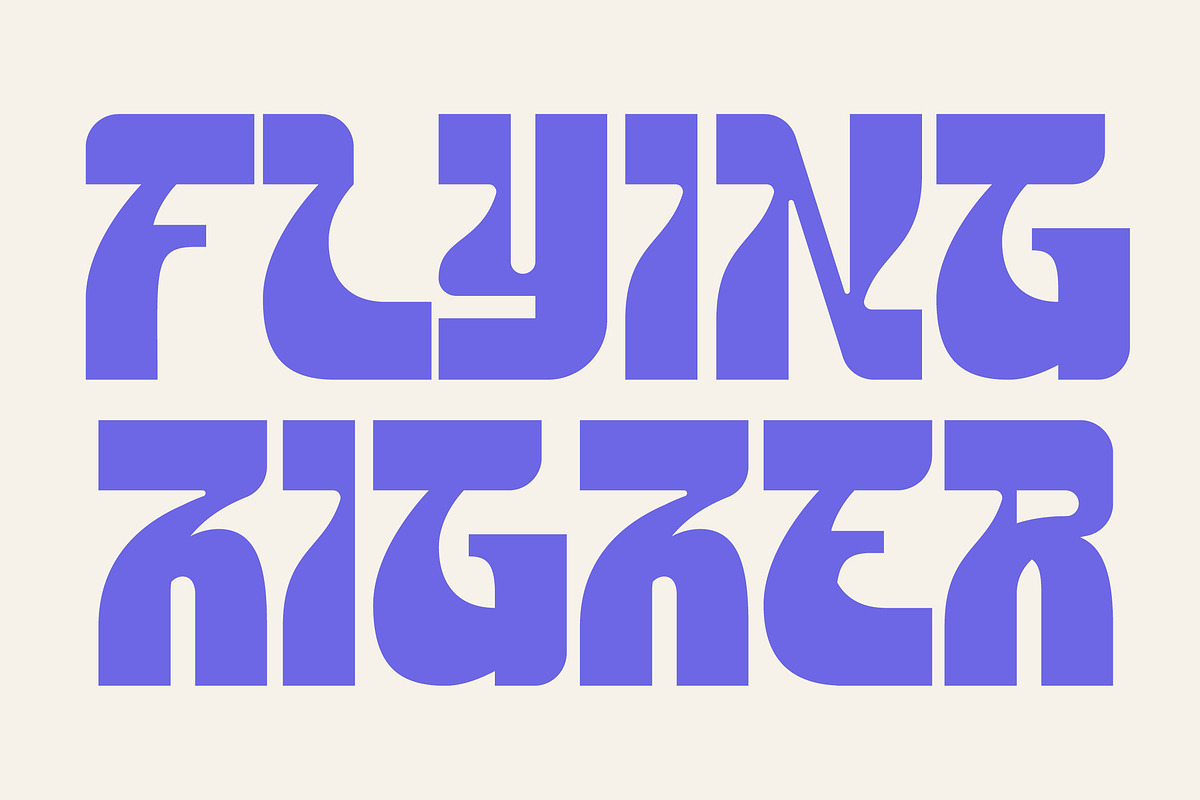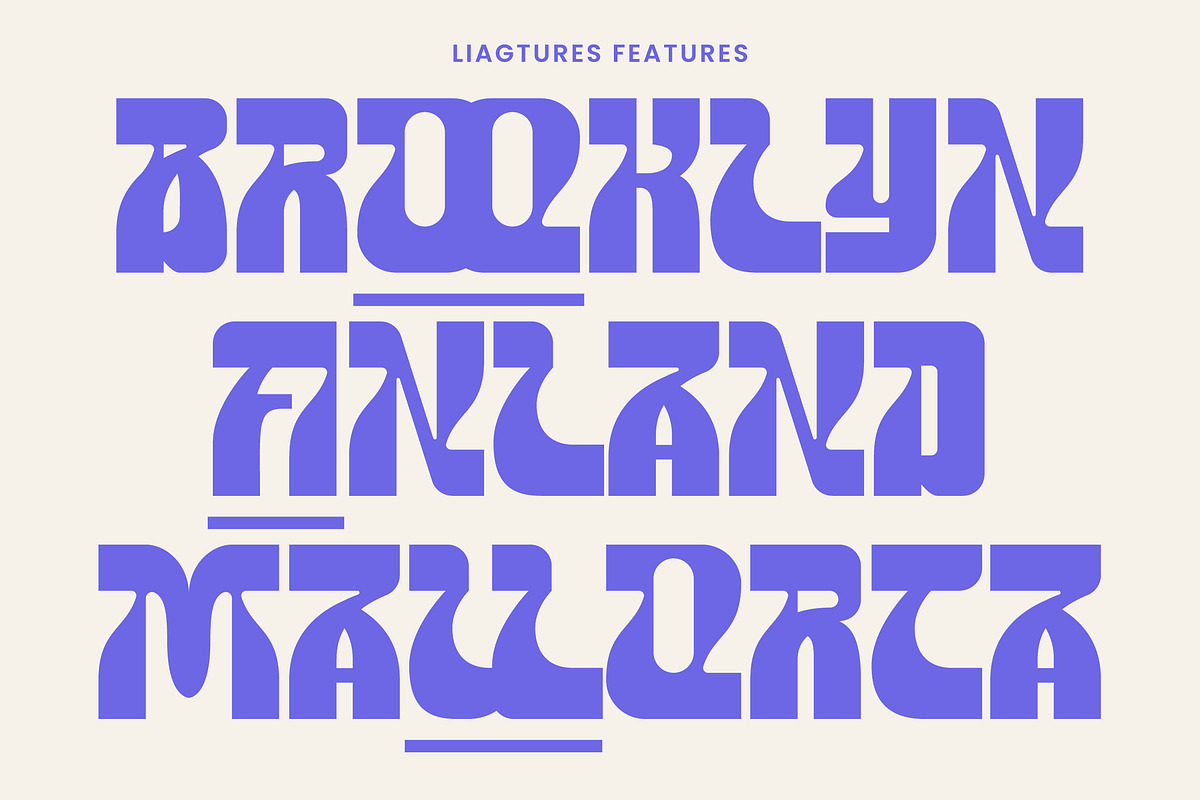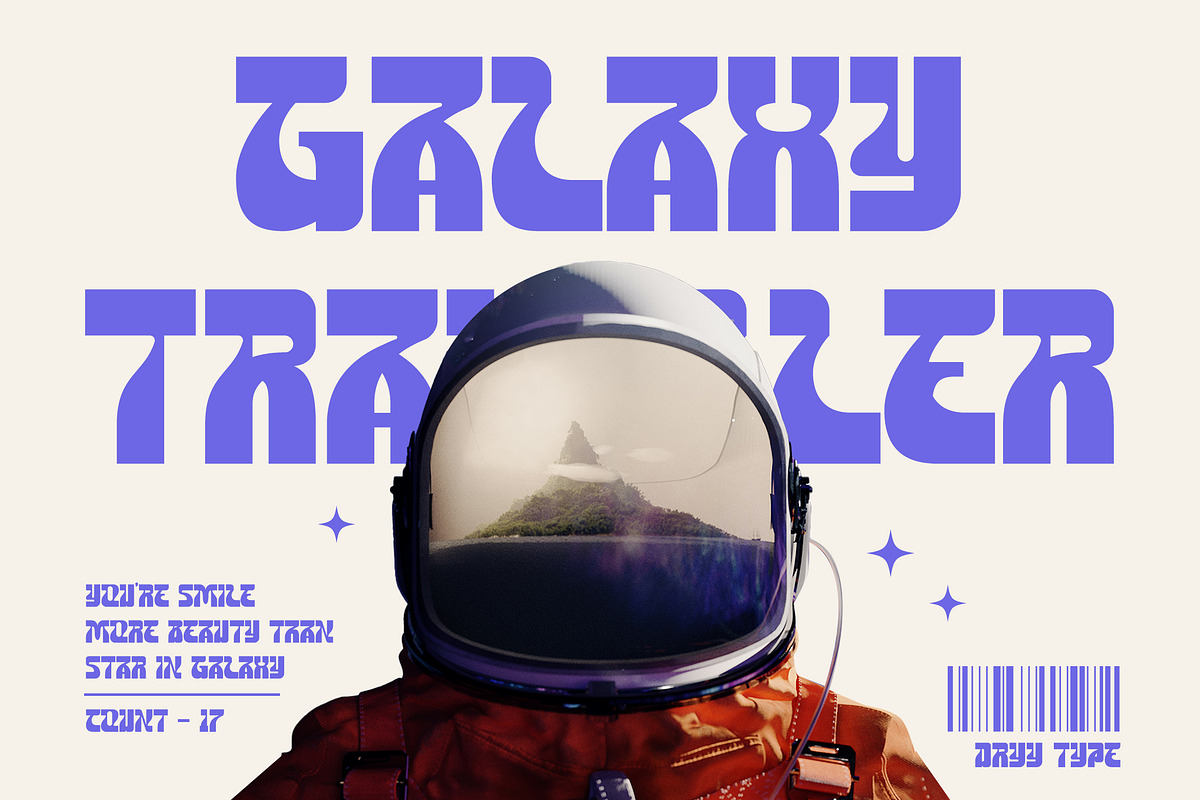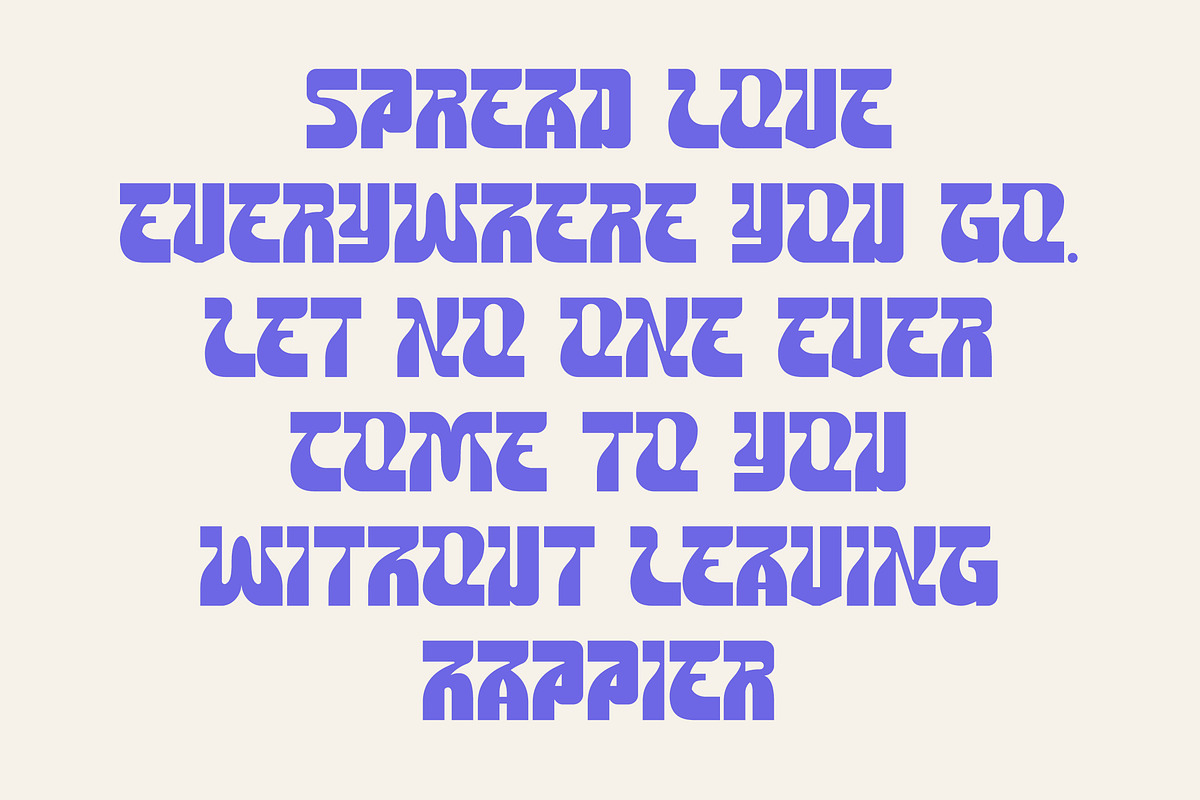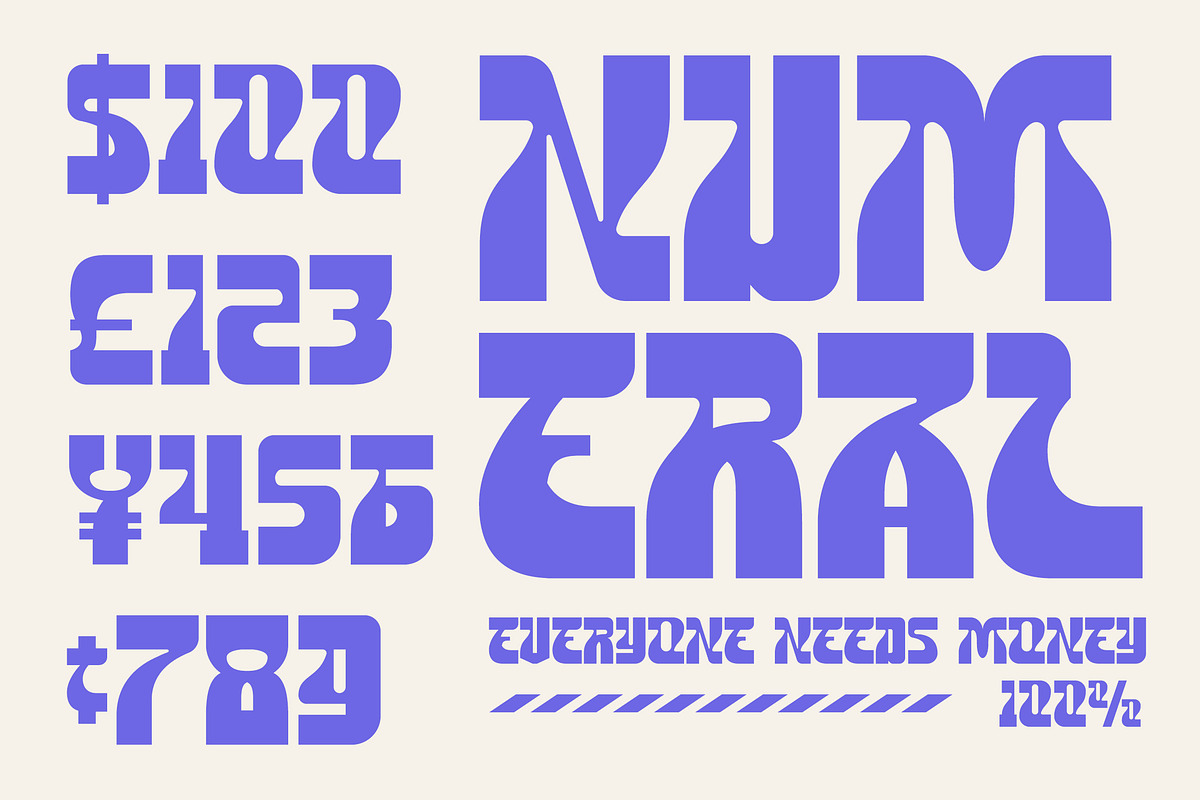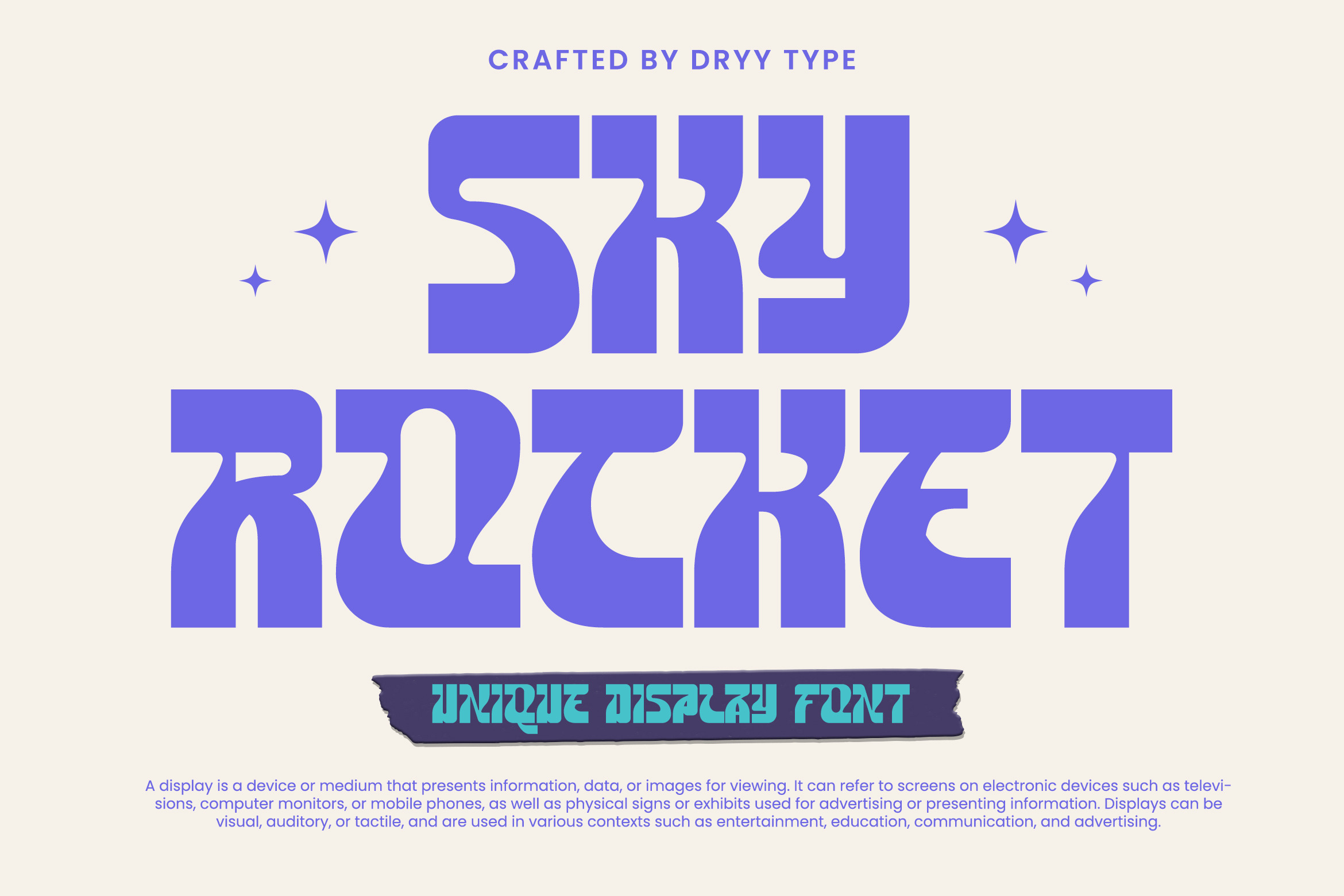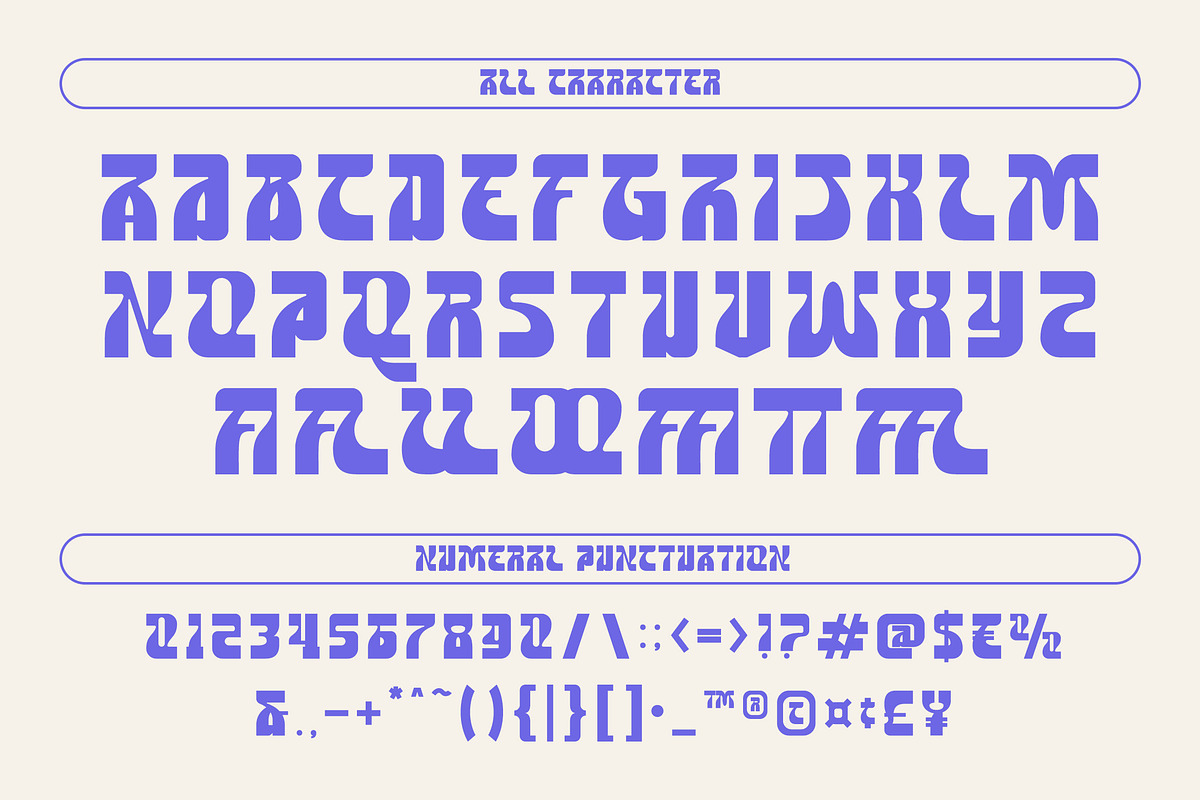
Sky Rocket - Unique Display Font
The Sky Rocket font was inspired by a streak that hopes to become its name, namely rocket, which makes this font or the designs that use it fly high. This font I created is meaningful & very versatile, it goes well with various designs, elevating them to the highest level. Add this font to your favorite creative ideas and see the results!
Features : Single Case, Numerical, Ligature, Alternate & Multilanguage Support